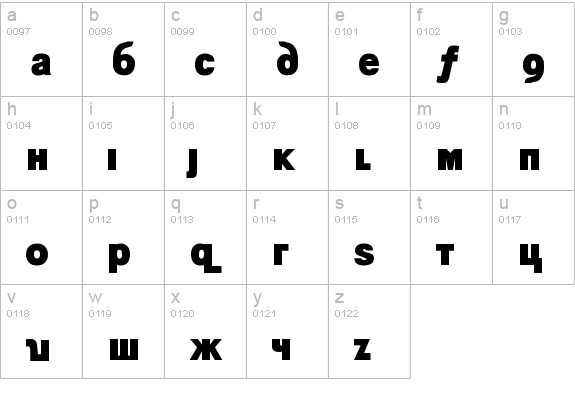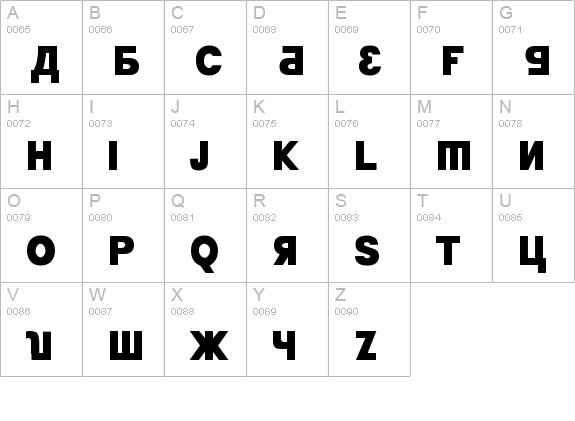
Kremlin Minister Black is a maximum-weight, dramatic variant in the Kremlin typeface family \xE2\x80\x94 well suited to maximum-impact headlines, posters, and packaging.
Introducing the magnificent Kremlin Minister Black font, a timeless typeface that embodies elegance, sophistication, and professionalism. With its bold and commanding presence, this font exudes authority and power, making it the perfect choice for any project that demands attention. Kremlin Minister Black font features sleek and sharp letterforms with a touch of modernity, making it suitable for a wide range of design applications. Whether you're creating captivating headlines, designing impactful logos, or crafting visually stunning posters, this font will effortlessly elevate your designs to new heights. What makes Kremlin Minister Black font even more appealing is that it is freely available to download at FontsMarket.com. That's right, you can access this exceptional font without any cost, allowing you to unlock its full potential and add a touch of grandeur to your creative endeavors. With its generous x-height and well-balanced proportions, Kremlin Minister Black font ensures optimal legibility across various platforms and sizes. Its carefully crafted characters possess a timeless appeal that transcends trends, making it a versatile choice for both print and digital projects. Whether you're a seasoned designer or a budding creative, Kremlin Minister Black font will undoubtedly become a valuable asset in your typographic arsenal. Its bold, yet refined appearance will effortlessly captivate your audience, leaving a lasting impression that is impossible to ignore. So, why wait? Embrace the power and elegance of Kremlin Minister Black font today and witness your designs come to life with a touch of class. Download it freely at FontsMarket.com and embark on a creative journey filled with limitless possibilities.